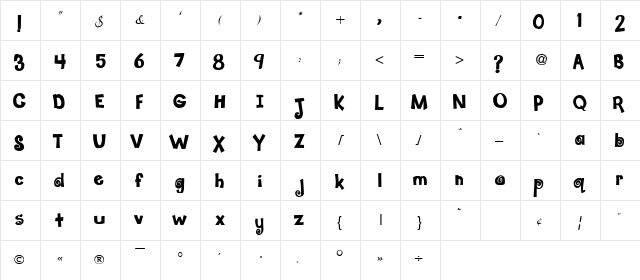
JellyRoll Regular Font Preview
JellyRoll Regular
Design Context for JellyRoll Typeface
JellyRoll is a composed and adaptable typeface that performs quietly and consistently across a wide range of design contexts.